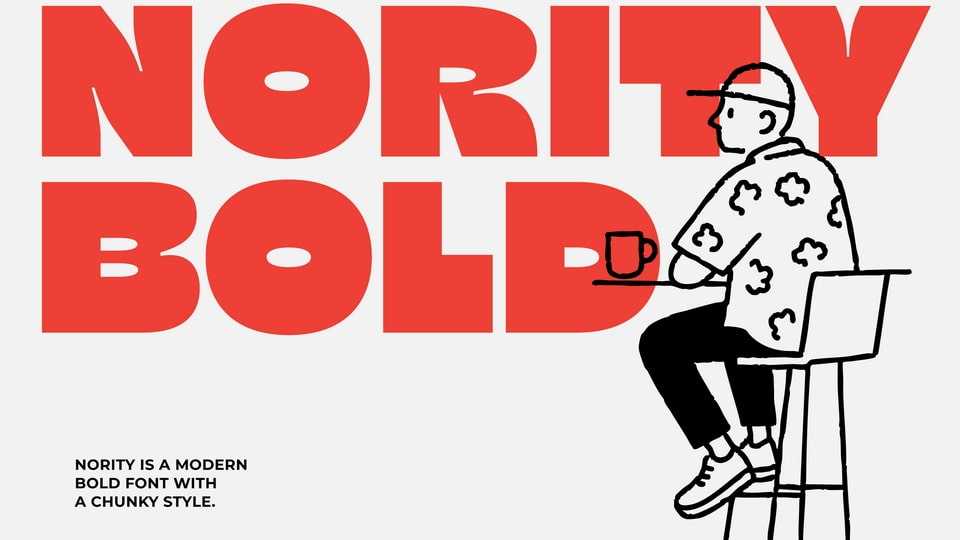
Download Nority font, a bold and chunky display typeface with strong geometric construction and modern inktrap inspired details that give each letter a distinctive, playful character.